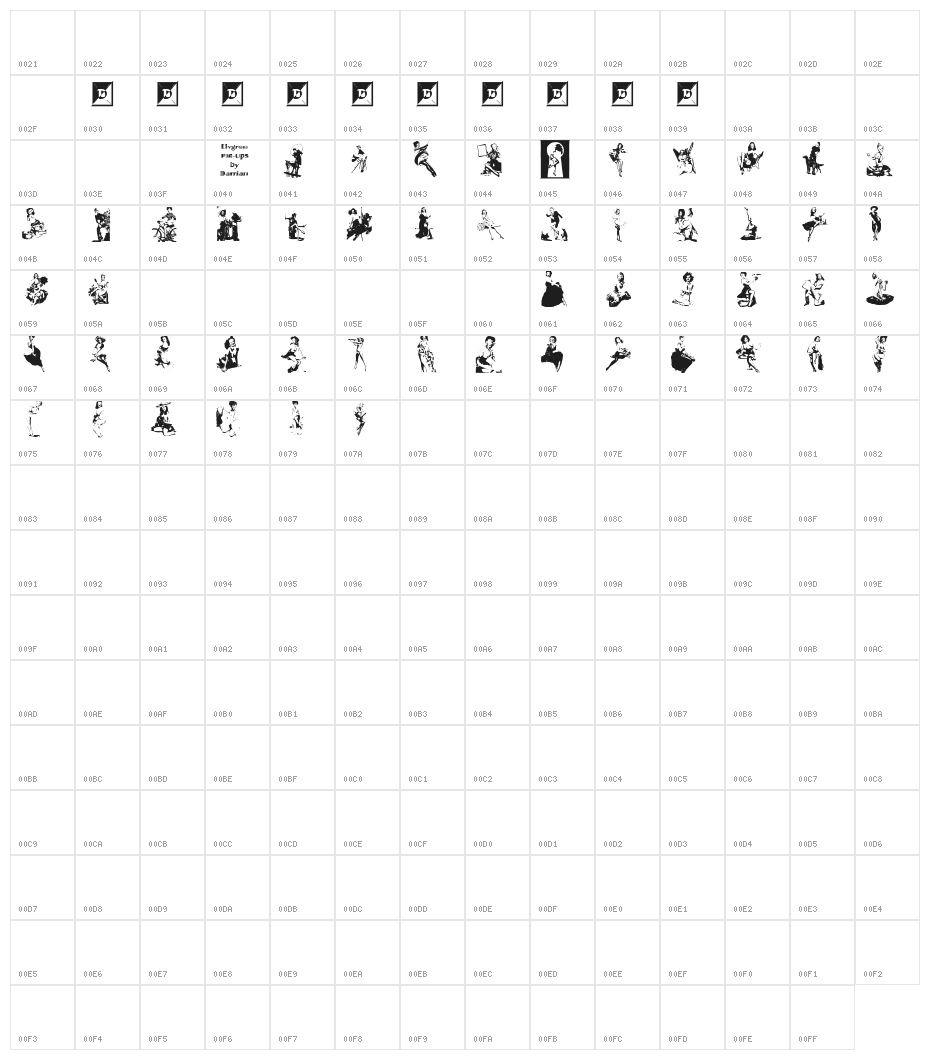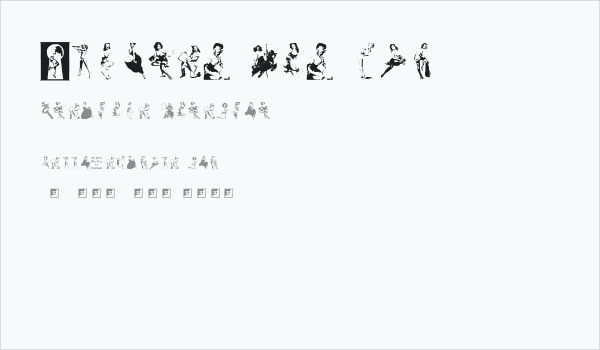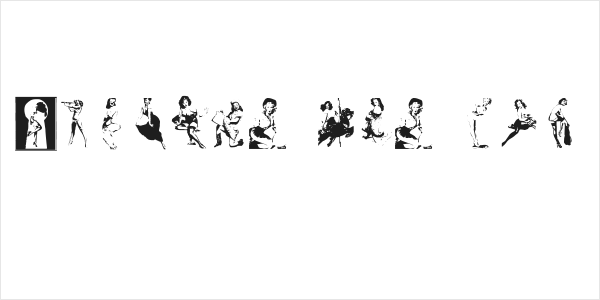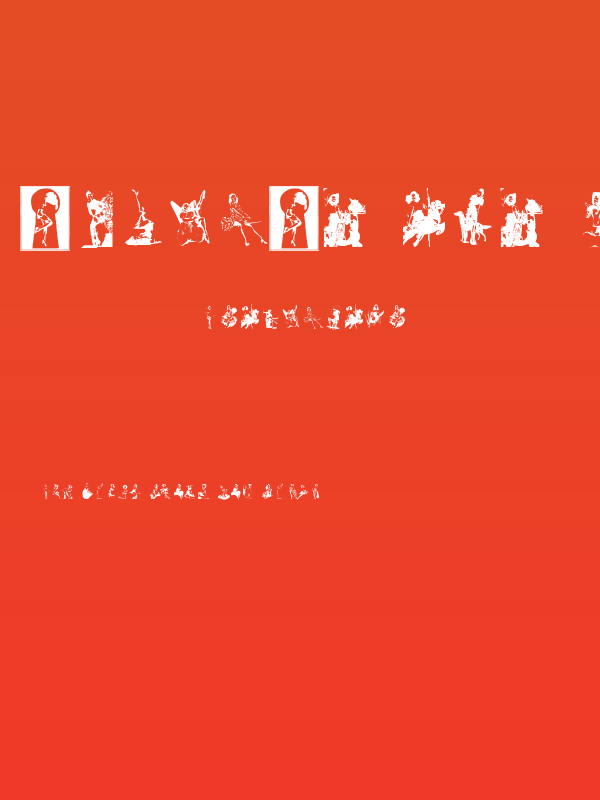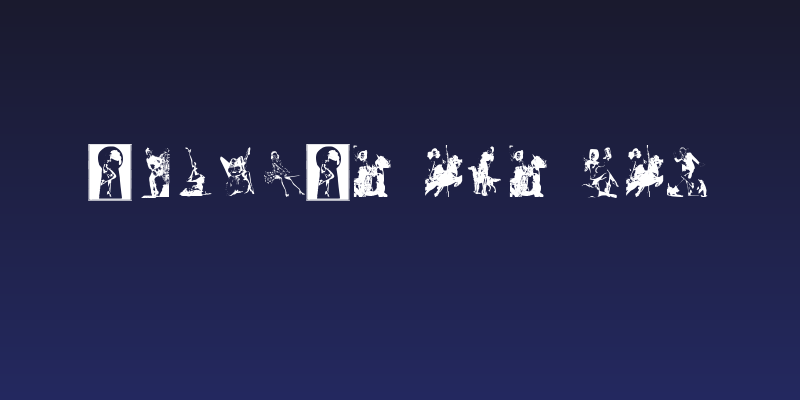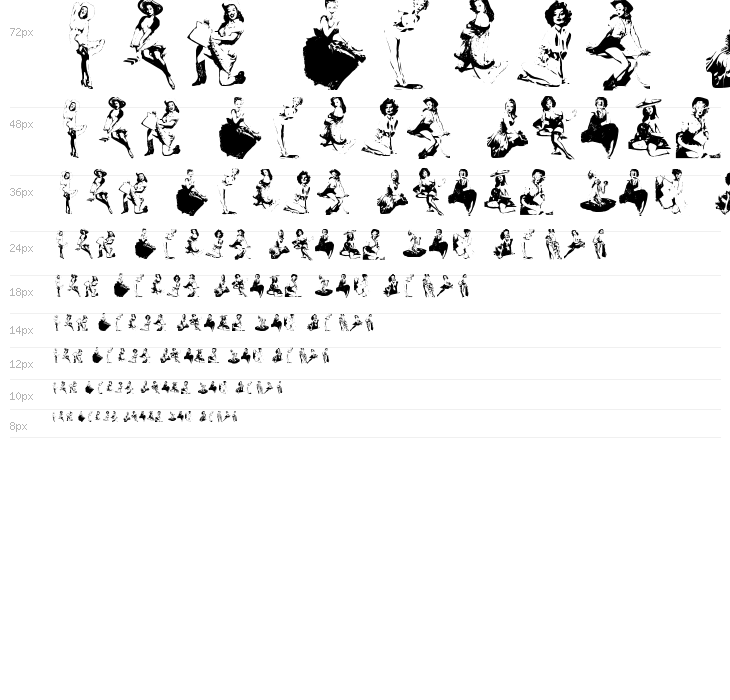
Elvgren Pin-ups Font
Elvgren Pin-ups Description
A decorative display font featuring detailed black-and-white pin-up illustrations in place of traditional alphanumeric characters, inspired by vintage pin-up art. Each glyph is a unique silhouette or scene, making the set highly illustrative and thematic.
Overall StyleVintage, Decorative
Use CaseHeadlines, Logos, Posters, Themed graphics
Proposed ProjectsPosters, retro-themed event flyers, art projects, novelty invitations, branding for vintage or pin-up related businesses.